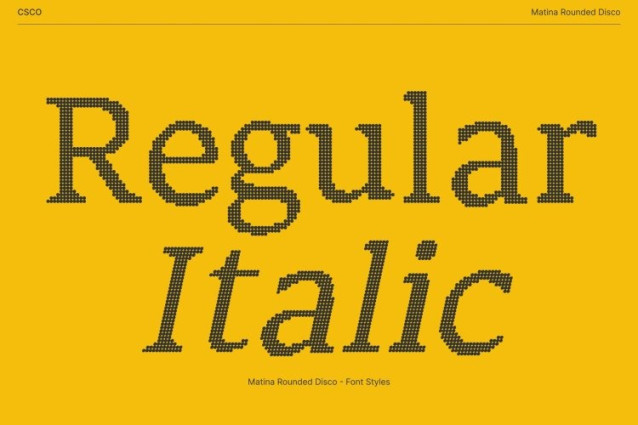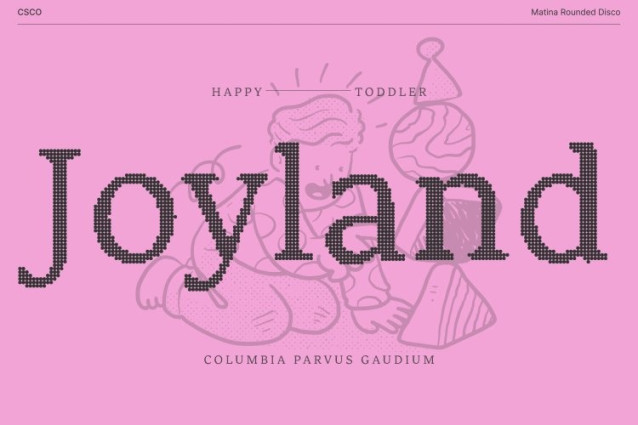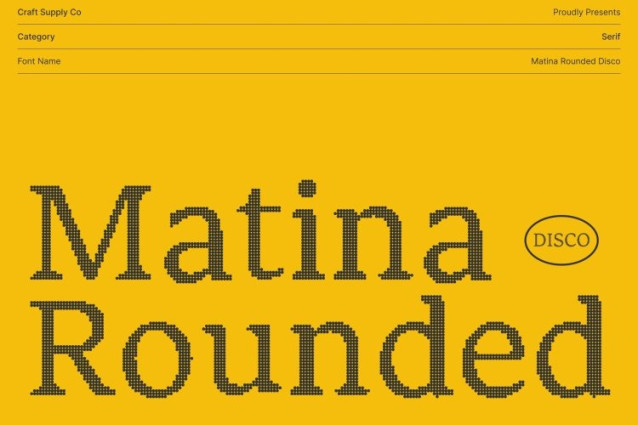
Matina Rounded Disco Font
Matina Rounded Disco Font This is a serif font designed for smooth, comfortable reading with gentle contrast and balanced proportions. Its low-contrast structure ensures an even visual rhythm, allowing text to flow naturally and remain easy on the eyes perfect for long-form content and everyday reading.
Soft Rounded Serifs with a Warm, Festive Touch
The softly rounded serifs give this font a friendly and approachable character, now enhanced with a subtle disco-inspired charm. The curves feel warm and lively, echoing the glow of ambient lights without distracting from readability. This creates a welcoming tone that feels modern, expressive, and quietly joyful.
Optimized for Body Text Comfort
Carefully crafted for body text use, this font minimizes eye strain through smooth strokes and consistent spacing. Its relaxed structure supports long reading sessions across articles, books, websites, and editorial layouts keeping the experience comfortable while adding a hint of personality.
Versatile Across Digital and Print Media
From websites and apps to magazines, books, and printed publications, this font adapts beautifully across platforms. Its understated disco influence brings a fresh, contemporary feel, making content feel engaging and alive while preserving clarity and professionalism.